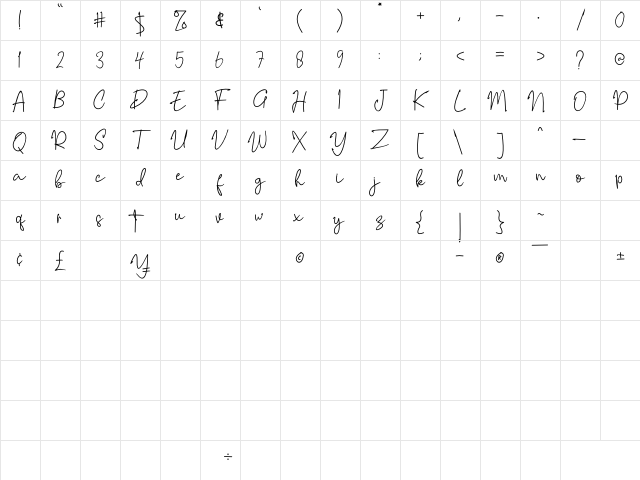
Riujin Palluy Regular
Designer: Hindro Cholis
Design Context for Riujin Palluy
Riujin Palluy is a composed and adaptable typeface that performs quietly and consistently across a wide range of design contexts.